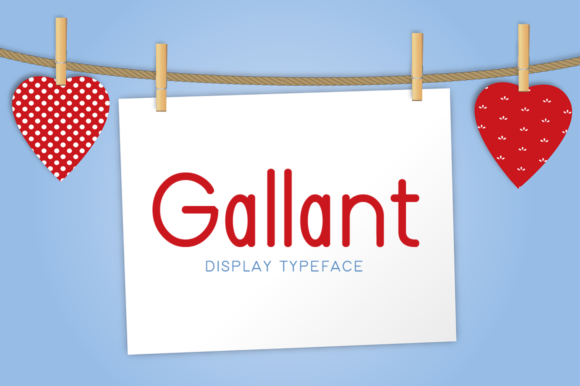
Embark on a typographic adventure with Gallant Font, a masterpiece crafted by Instagram Fonts. This exquisite display font exudes elegance and sophistication with its distinctive sans serif design. Each letter is a testament to the beauty of simplicity, rendered with clean lines and captivating curves.
Immerse yourself in the captivating allure of Gallant Font. Its casual nature invites you to express your creativity with ease, while its straightforward style ensures readability and versatility. Unleash your imagination and craft stunning designs that leave an unforgettable impression.
Let the unique style of Gallant Font ignite a spark of inspiration within you. Its refined aesthetic adds a touch of charm to any project, elevating your designs to new heights. Experience the joy of creating with a font that not only enhances the visual appeal of your work but also conveys your message with clarity and impact.
Indulge in the endless possibilities that Gallant Font offers. Whether you're designing logos, branding materials, or simply adding a personal touch to your digital creations, this font is your perfect companion. Embrace its versatility and let your imagination soar.
With Gallant Font, you'll discover a font that not only meets your design needs but also sparks your creativity. Its captivating allure and effortless elegance make it the perfect choice for those seeking to make a statement with their designs. Fall in love with the beauty of Gallant Font and embark on a typographic journey that will elevate your creations to new heights.